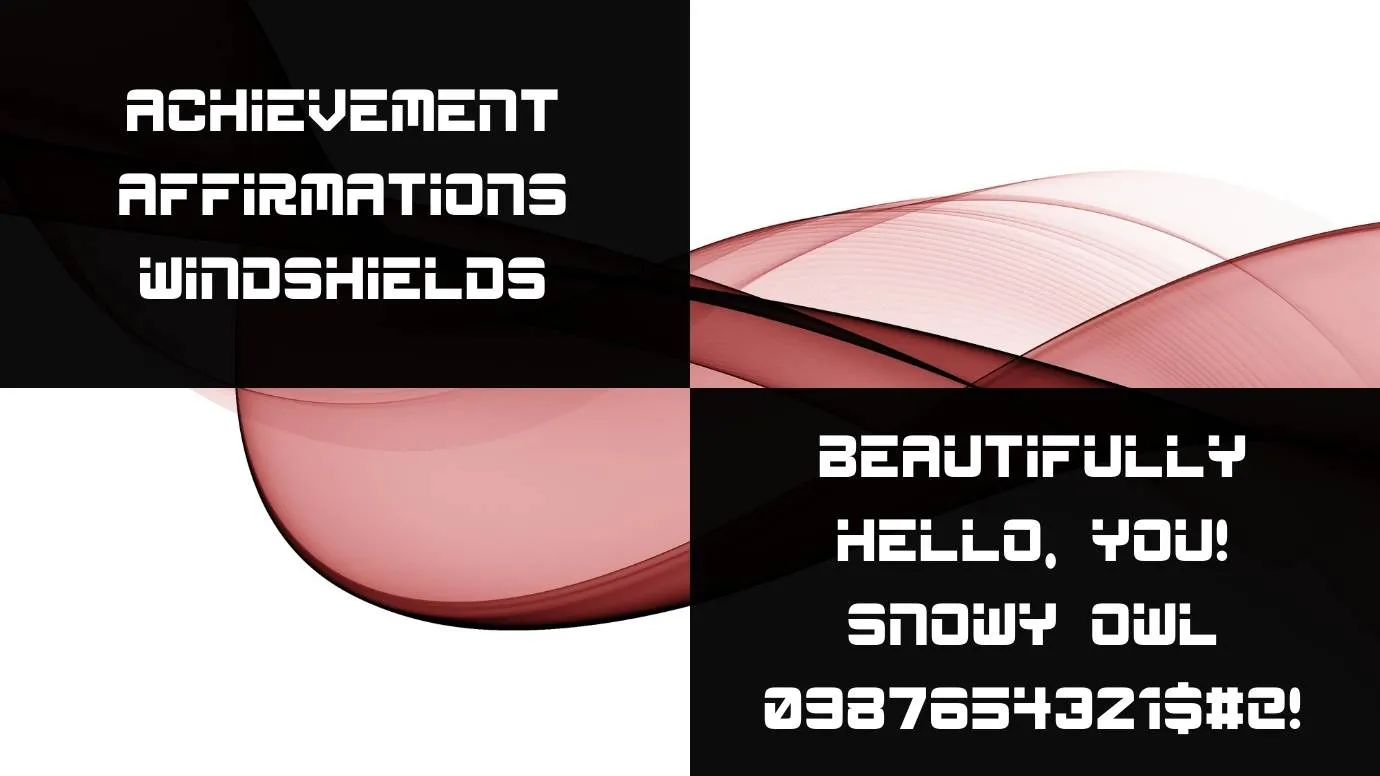
Today, We present a very popular and unique techno typeface that has very amazing glyphs and stunning features named ESP Font. This popular typeface was designed specifically for use for branding logos. Its design is simple and easy to read, making it ideal for use in educational materials. The font has a long history, dating back to the late 19th century when it was first created.
This font was created by Nick A. Lynch, a well-known typeface designer from the early century. The glyph of this font is unique and easily recognizable in any kind of project. It’s particularly well-suited for educational materials, such as textbooks and instructional manuals.
The google logo font is a great sans-serif typeface and is best for pairing procedures with this typeface. The simple design of the This font makes it a good choice for use in headings and other short blocks of text.
Creator of ESP Font
This font is popular worldwide that was designed by a very famous designer named Nick A. Lynch. This designer is famous because of his creative design.
View of ESP Font
| Name | ESP Font |
| Style | Techno |
| Designer |
Nick A. Lynch
Can I use ESP in a logo?
Yes, This can be used in a logo. The key is to use it sparingly and pair it with other fonts or graphic elements to create contrast.
What makes ESP font special?
This font is special because of its readability. The font is perfect for longer passages of text and can be used in both formal and casual settings.